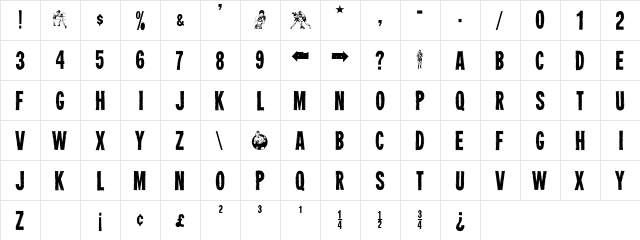
Heavyweight Regular
Design Context for Heavyweight Typeface
Heavyweight is a composed and adaptable typeface that performs quietly and consistently across a wide range of design contexts.
Pro Tip: Pair Heavyweight with a font of contrasting weight or personality to build a more expressive typographic hierarchy.